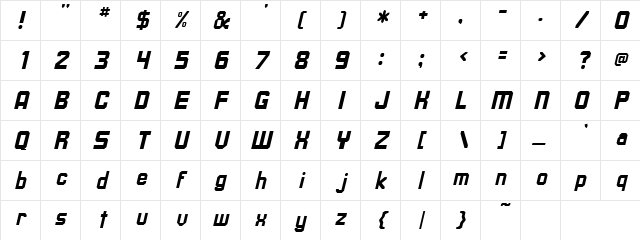
Eliza is a composed and adaptable typeface that performs quietly and consistently across a wide range of design contexts. The slanted form adds forward momentum and visual energy.
Pro Tip: Use Eliza for emphasis, pull quotes, and subheadings where its slanted energy can add rhythm to the layout.